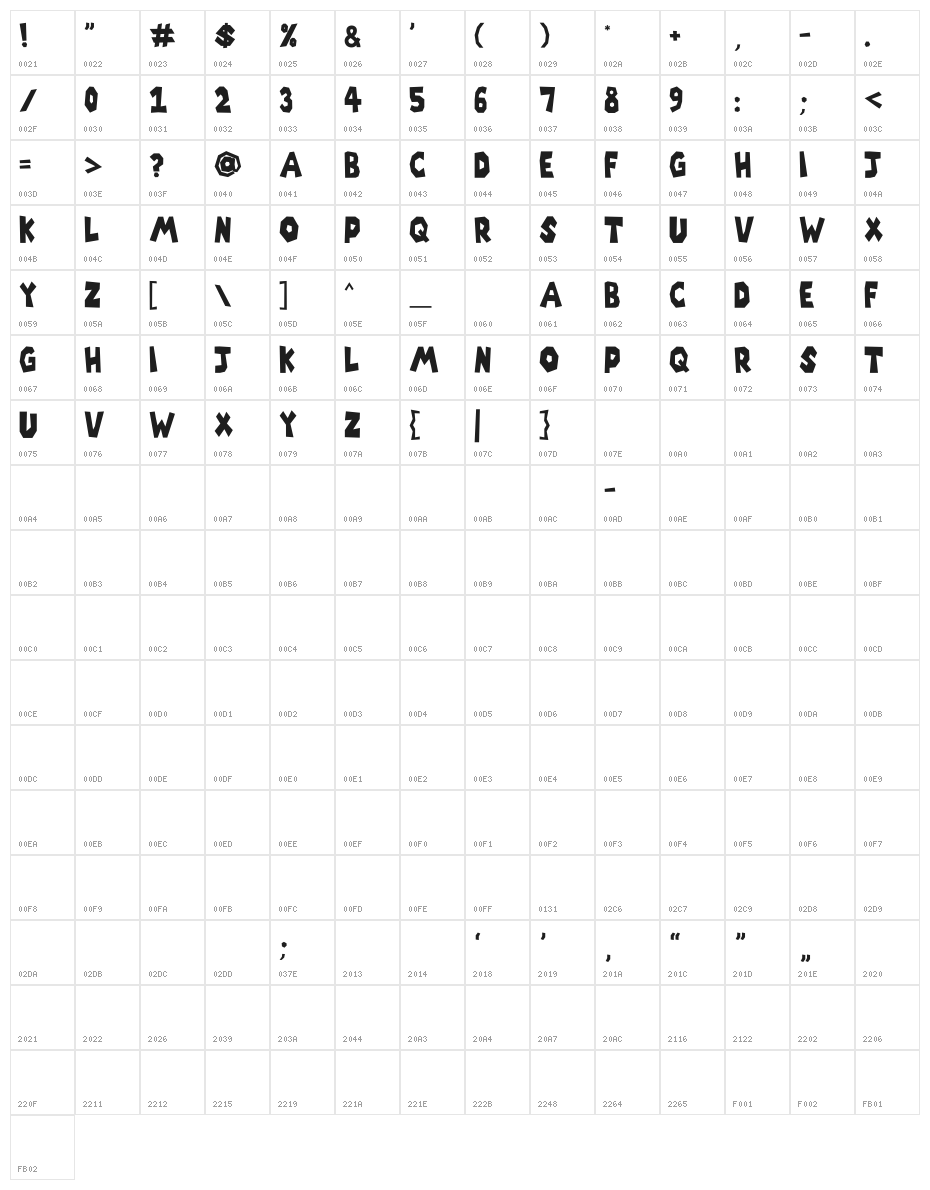
Wilkey Font
Wilkey Description
This font features a bold and dynamic style with a distinctly jagged and angular appearance. The characters are heavily stylized, with sharp edges and irregular shapes that give them a playful yet edgy feel. The uppercase and lowercase letters maintain a consistent design, enhancing the font's cohesive look. Numbers and special characters follow the same aesthetic, ensuring uniformity across all glyphs. The font's unique design makes it stand out, making it suitable for projects that require a strong visual impact.
| Overall Style | Modern, Edgy |
| Proposed Projects | Ideal for posters, album covers, video game graphics, and any project needing a bold, eye-catching typeface. |